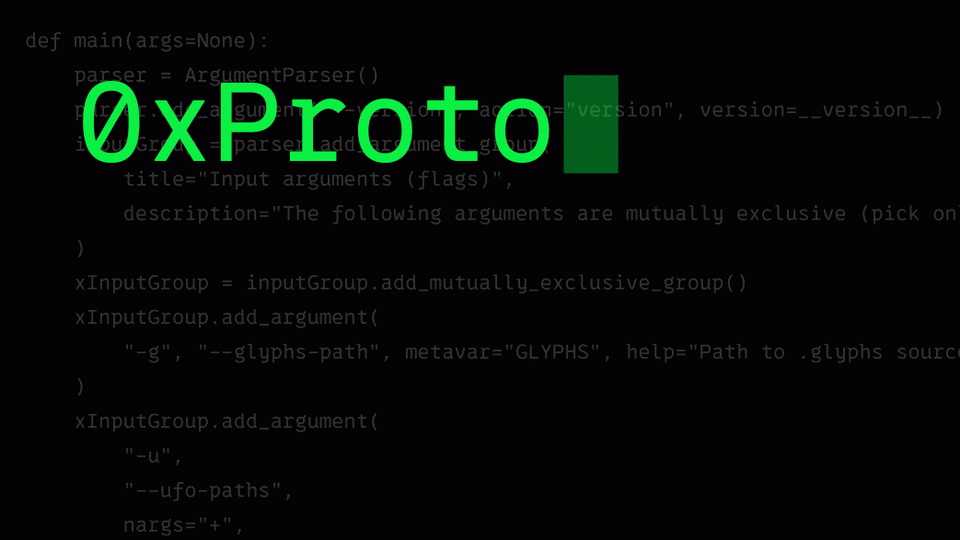
Download 0xProto font, a cohesive programming font ingeniously designed to enhance differentiation between similar-looking letters. 0xProto effectively mitigates distribution of dark and light spaces issue by employing unique letter shapes to maintain visual balance.